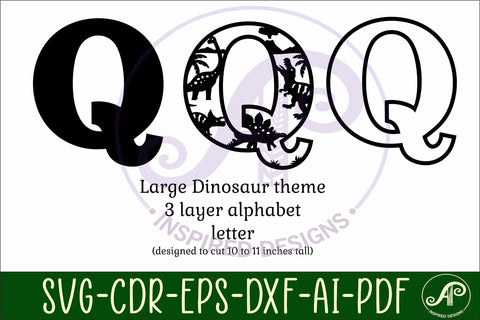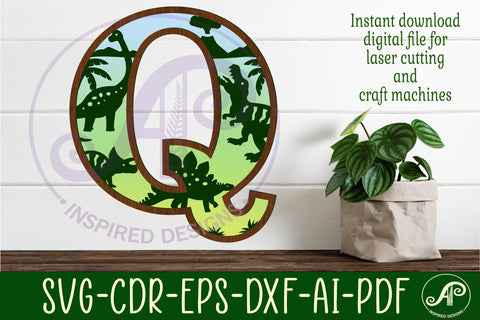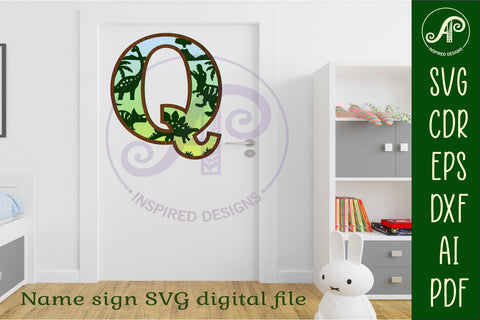
Dinosaurs Large Q wall Letter 3 layer sign
This digital download features a large 3 layer letter wall sign.
Design to cut 25 to 26cm high (10 to 11 inches) but can be resized. (resizing smaller will make lines finer so do not recommend any smaller than 5 inches (12.5cm)
Designed to be 3 layers (backing, detailed front cut out, then outline letter on top). designed to cut separately and glued together.